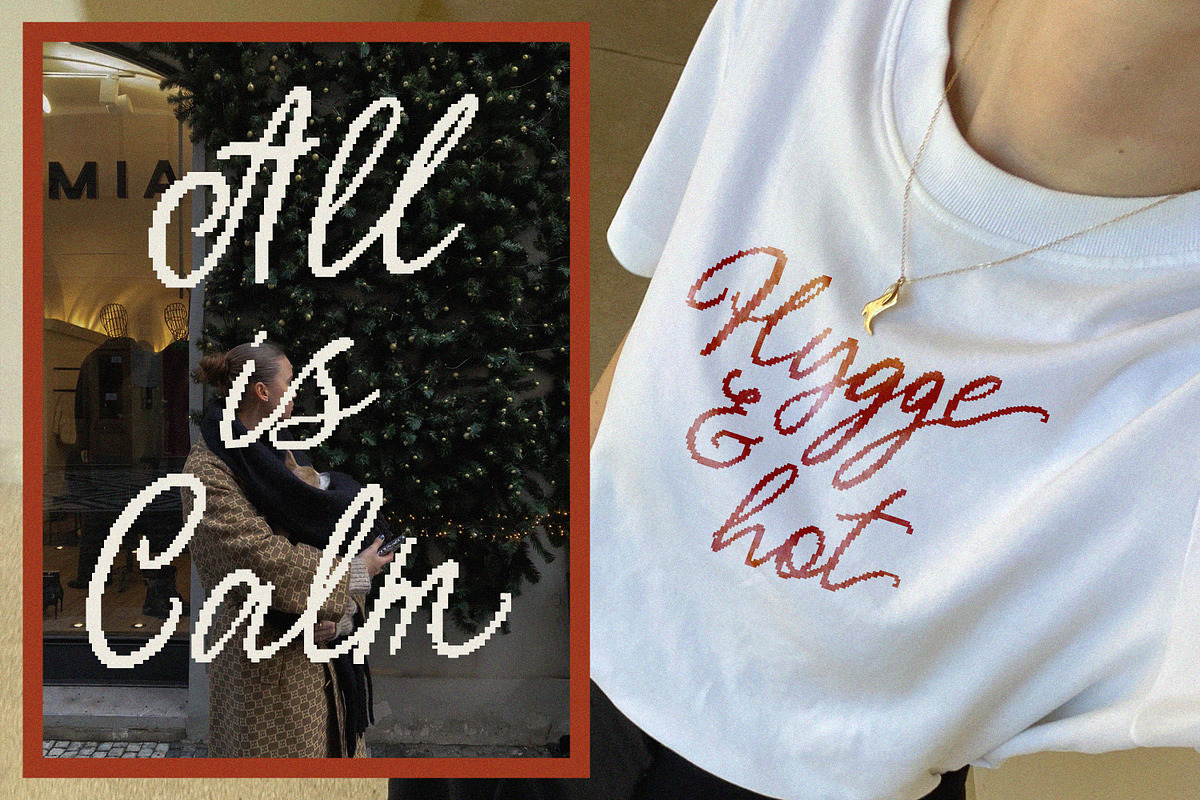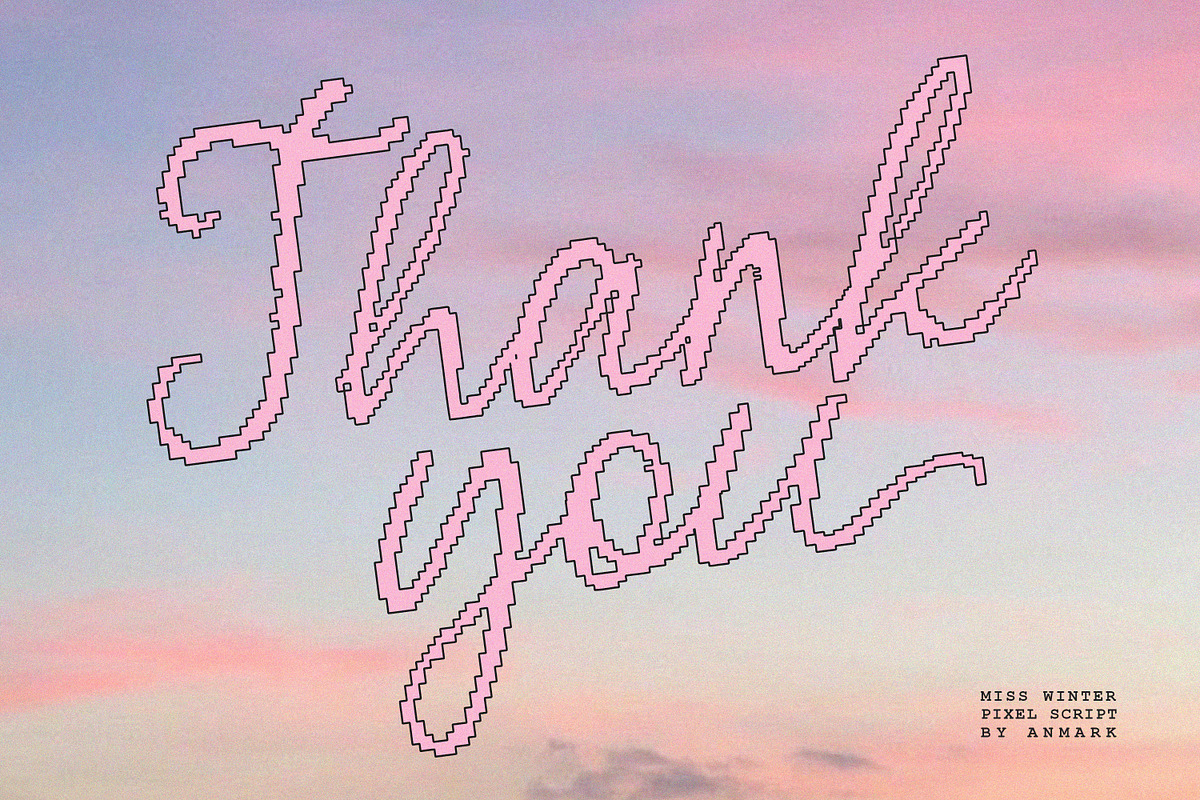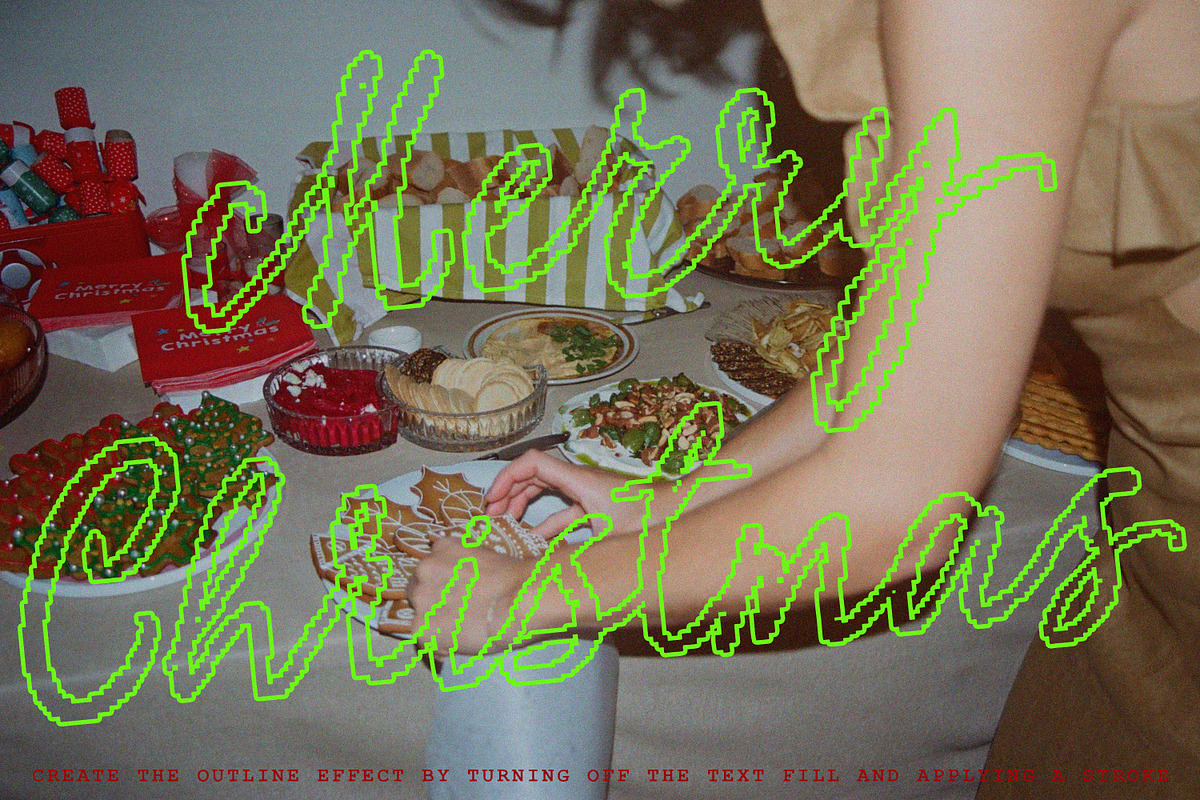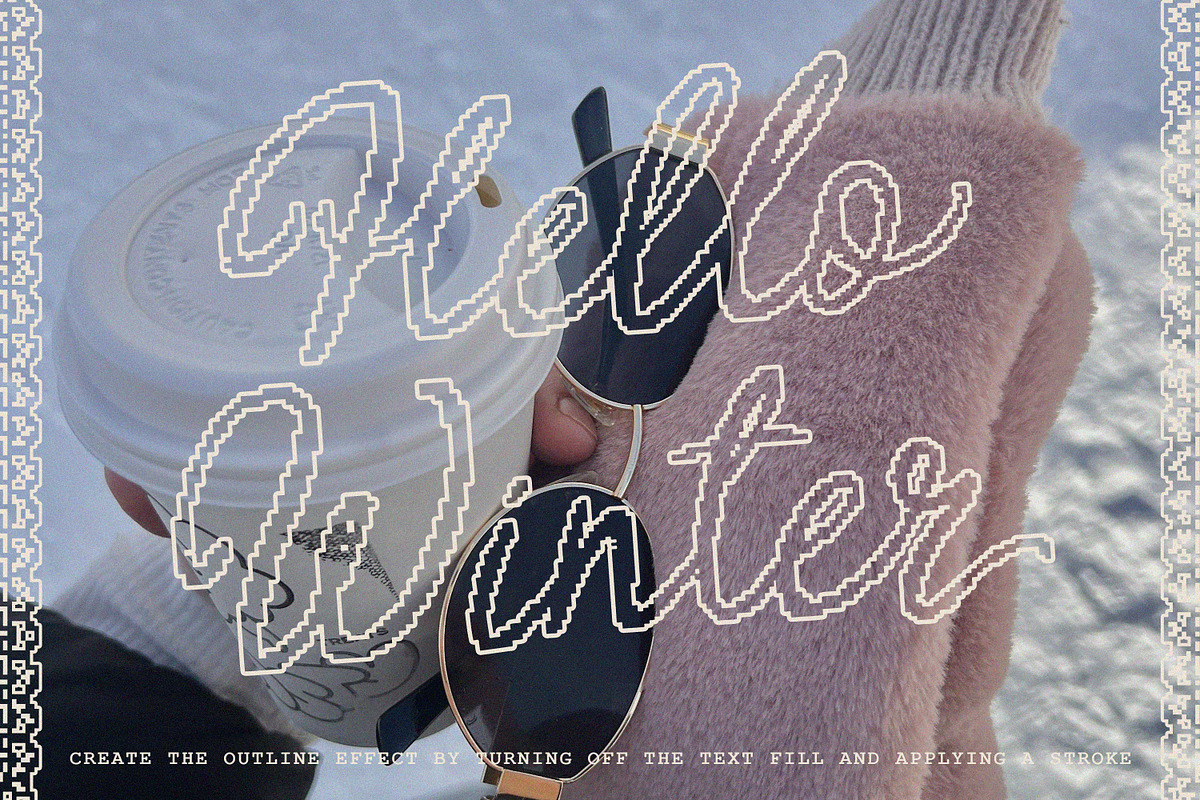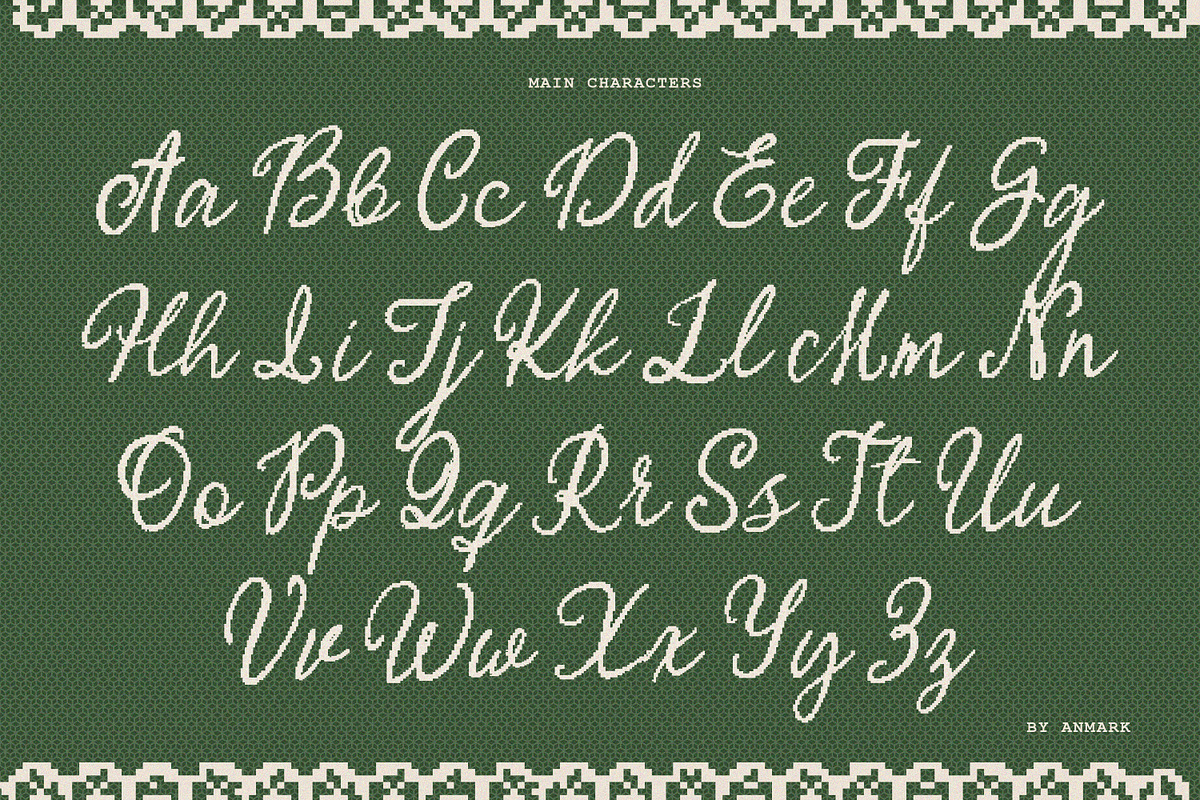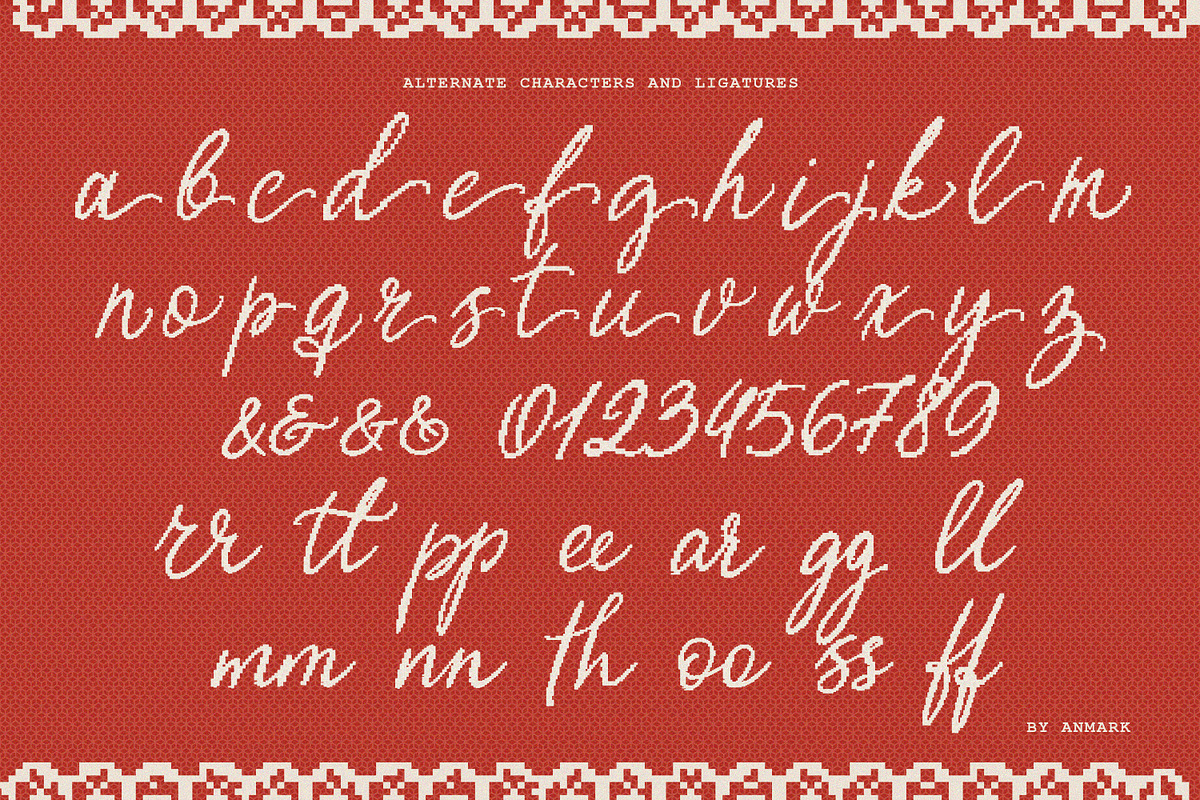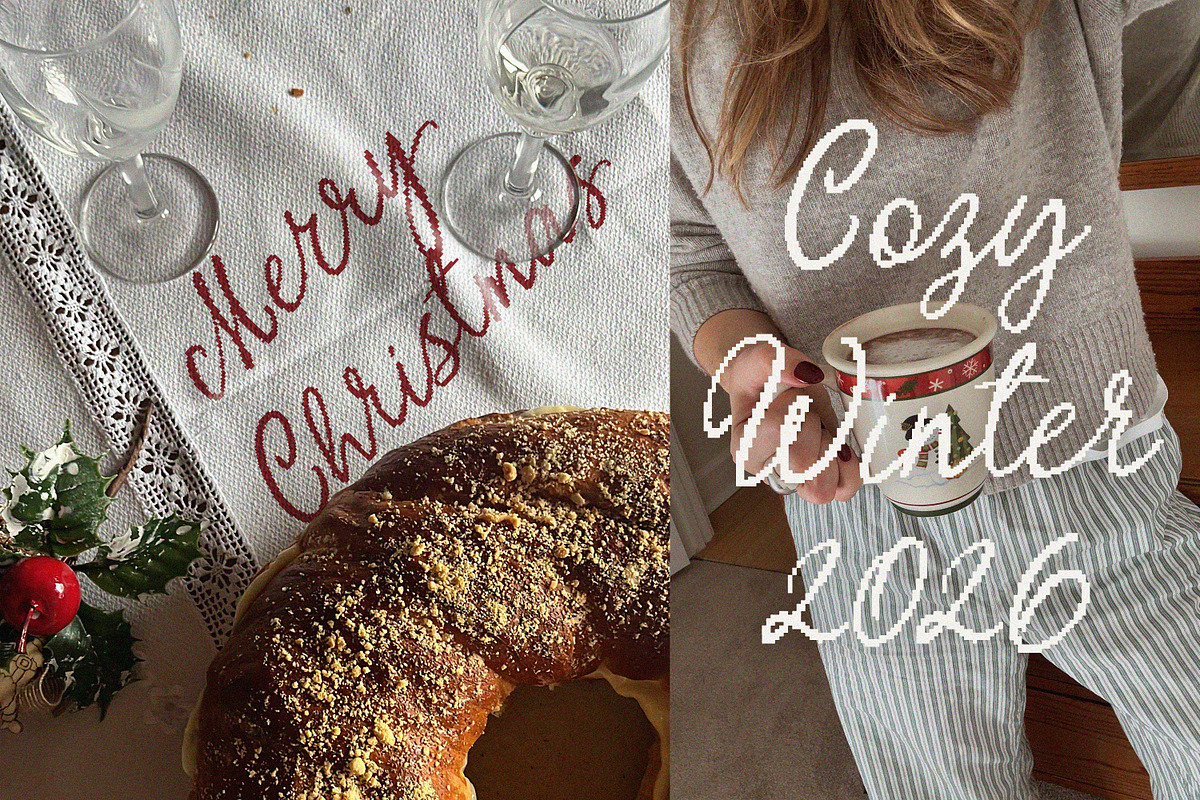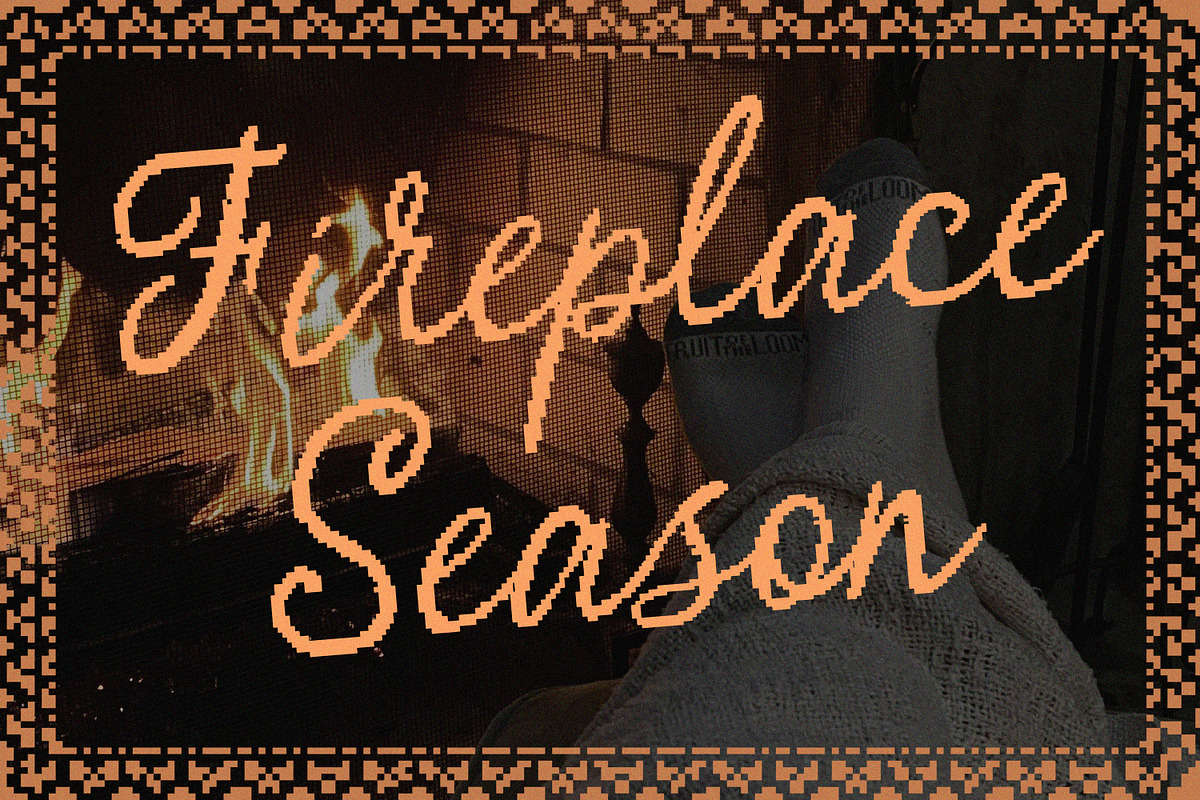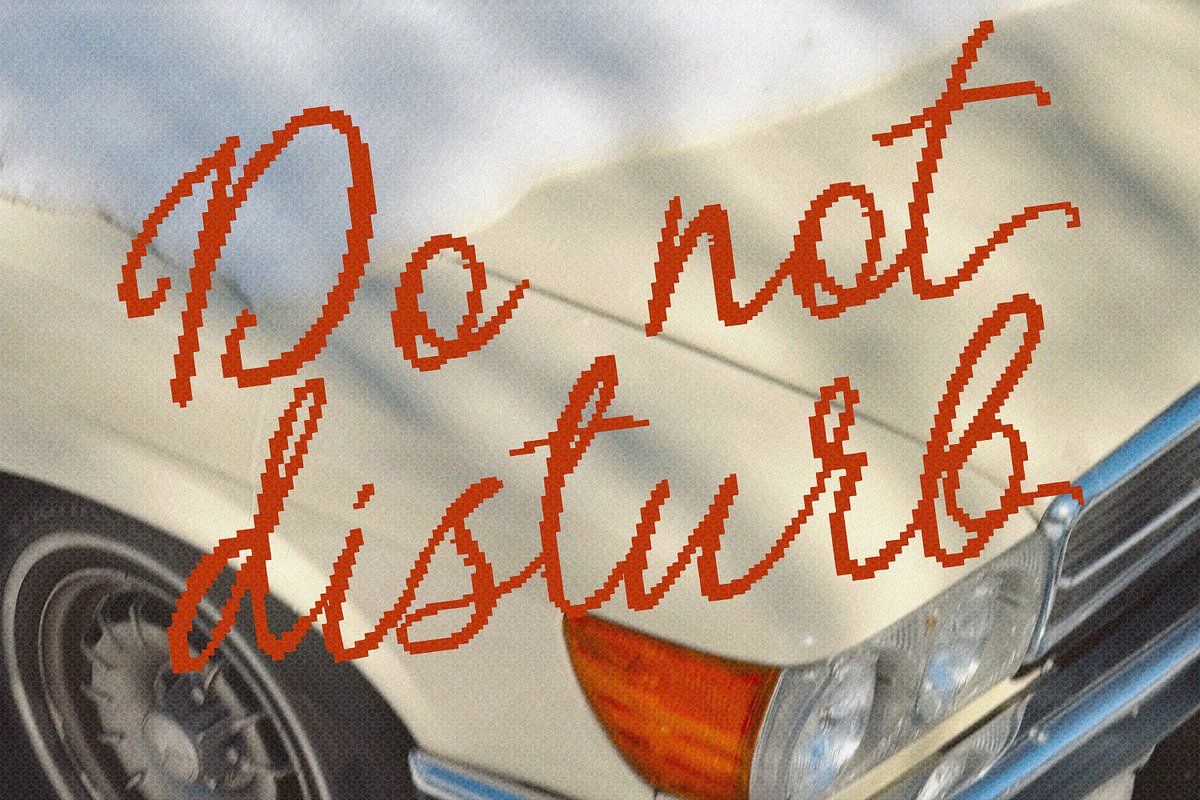
Miss Winter A Cozy Pixel Script Font
Miss Winter | A Cozy Pixel Script Font with Ligatures & Alternates
Meet Miss Winter - the digital calligraphy font that wraps your designs in a warm, playful hug! This isn't your average script; it's a charming pixel-perfect creation that blends nostalgic retro vibes with the elegance of modern calligraphy.
With its intentionally pixelated strokes and whimsical feel, Miss Winter adds a touch of handmade coziness to any project. It’s perfect for creating an inviting and friendly atmosphere that feels both personal and magical.
Why You'll Love Miss Winter:
Playful & Cozy Aesthetic: Its unique pixel-script style brings a warm, whimsical, and charming touch to your work.
Full of Character: Includes beautiful ligatures and stylistic alternates (with elegant end swashes) that allow you to customize your text and create a truly authentic handwritten look.
Modern Calligraphy, Digital Heart: Captures the flow of hand-lettered calligraphy with the crisp, nostalgic appeal of a pixel font.
Perfect for Cozy Creations: Ideal for branding that needs a personal touch, wedding stationery, magical social media quotes, charming wedding invitations, festive holiday designs, and any project that calls for a sprinkle of winter warmth and joy.
The Details:
- Standard Uppercase & Lowercase Letters
- Stylistic Alternates (with end swashes for beautiful connections!)
- Ligatures for a natural, flowing look
Add a dose of delightful charm to your font library. Bring your cozy, playful, and magical ideas to life with Miss Winter!